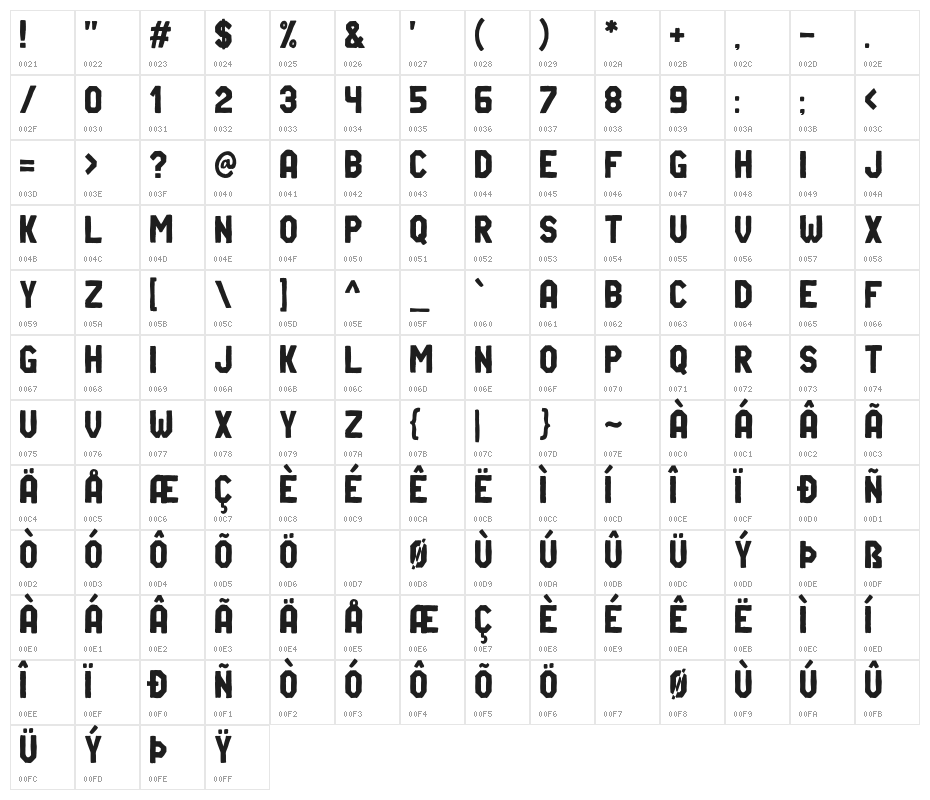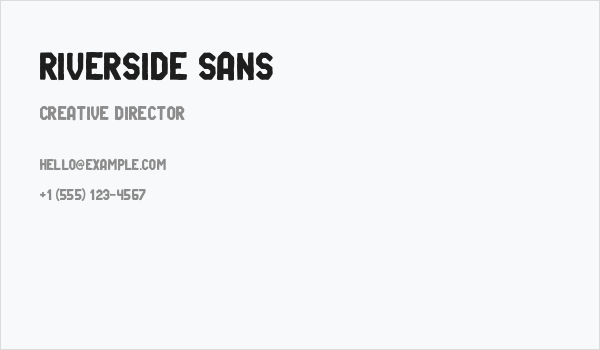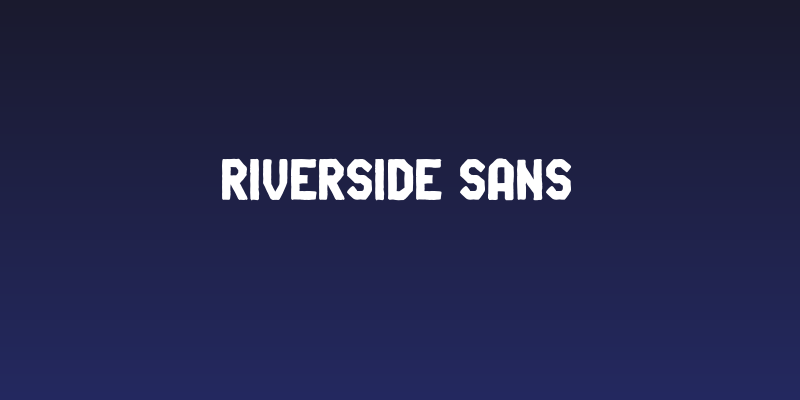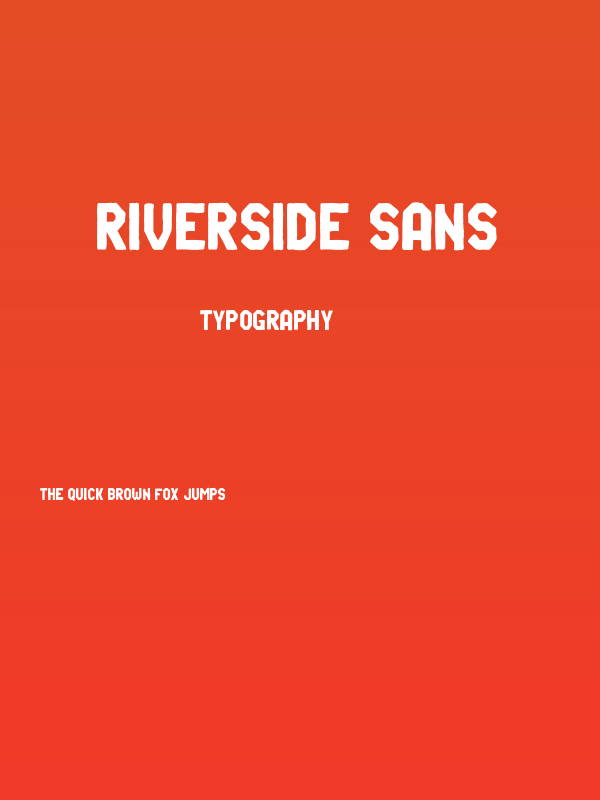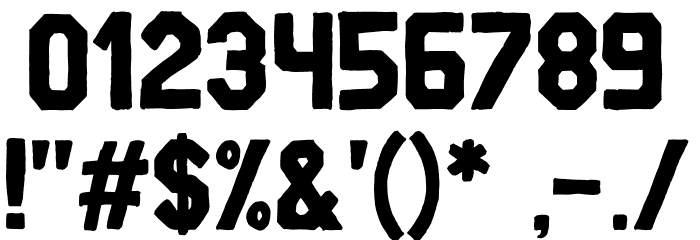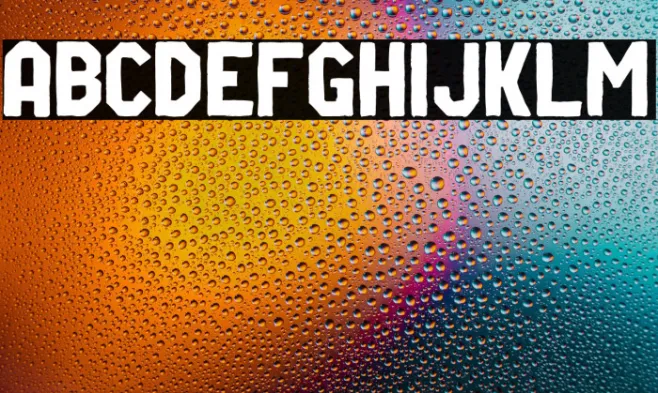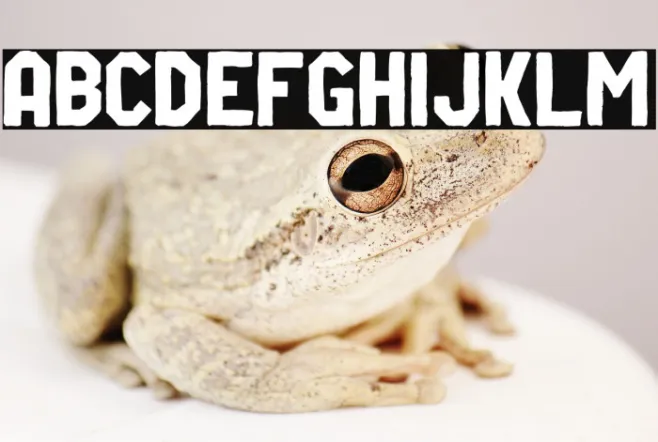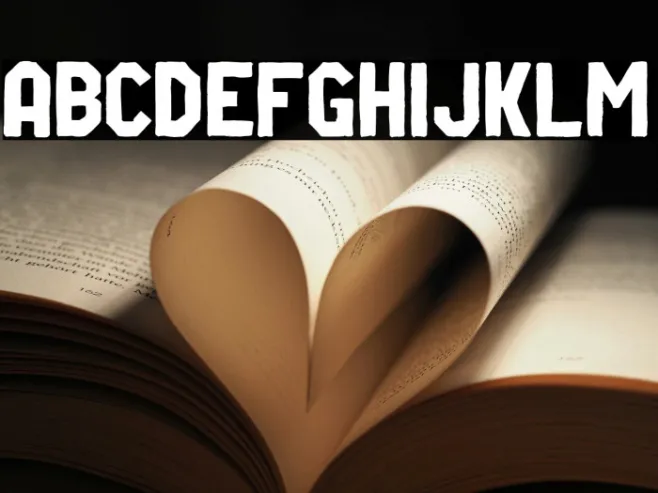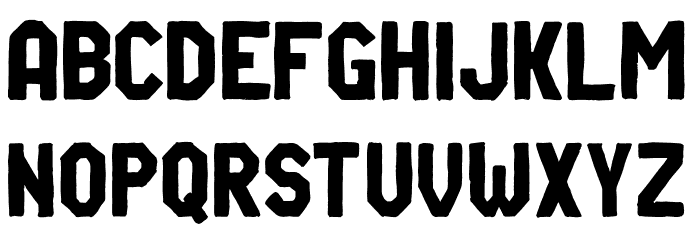
Riverside Sans Font
Riverside Sans Description
This font features a bold and rugged design with a hand-drawn aesthetic. The characters are thick and blocky, with a slightly irregular edge that gives them a handcrafted feel. The uppercase letters are prominent and assertive, while the lowercase letters maintain the same boldness, ensuring consistency across text. Numbers and special characters are equally robust, making them stand out in any design. The font's overall appearance is striking and impactful, ideal for projects that require a strong visual presence.